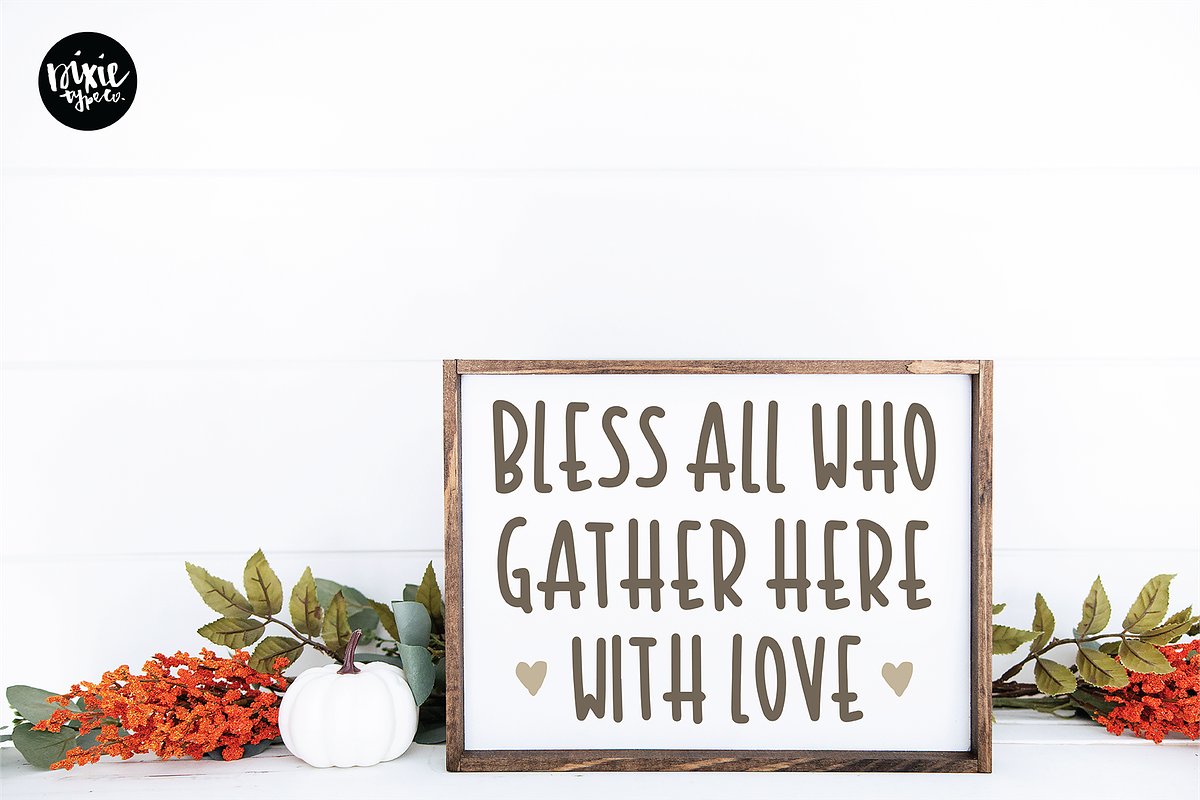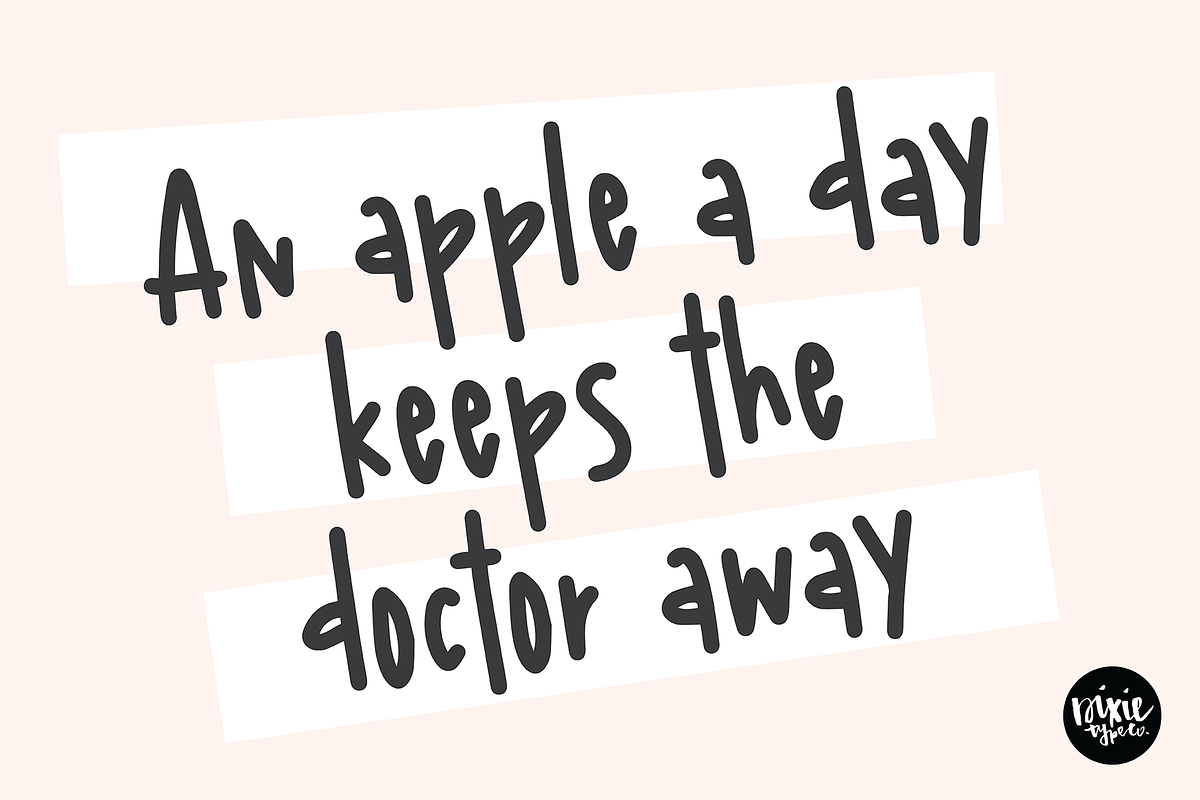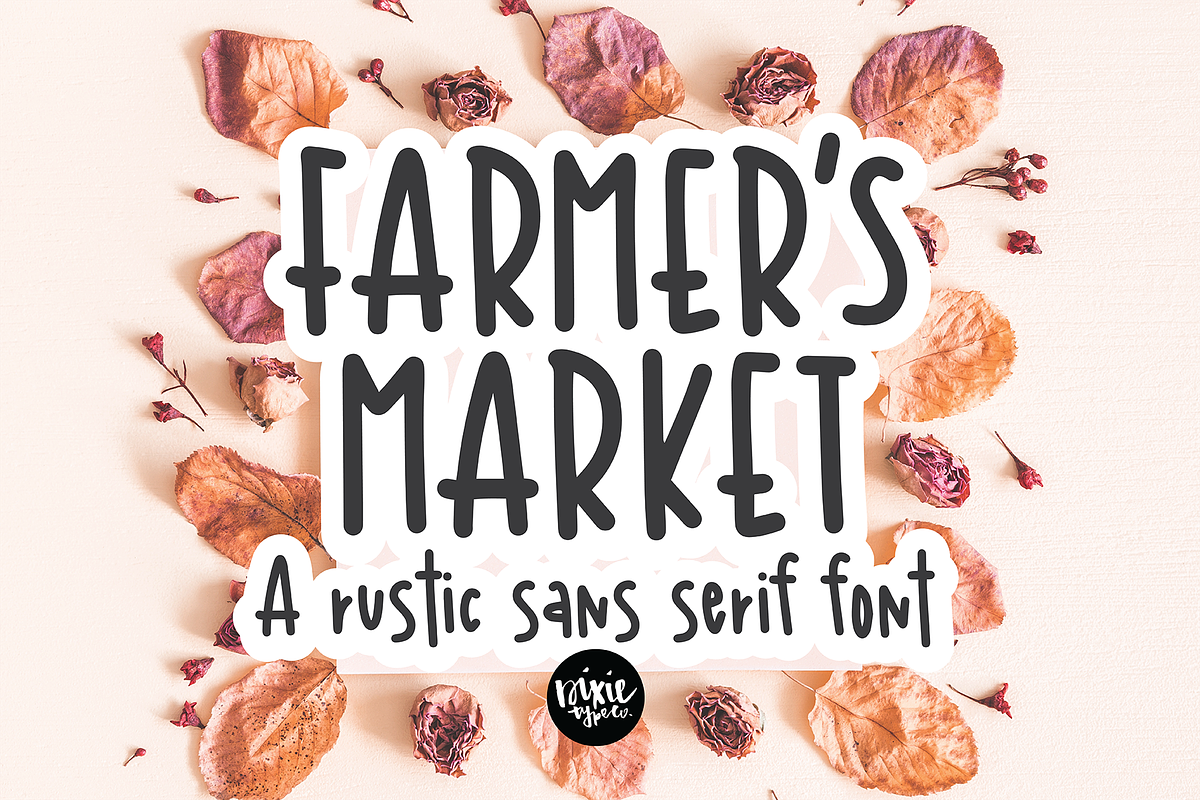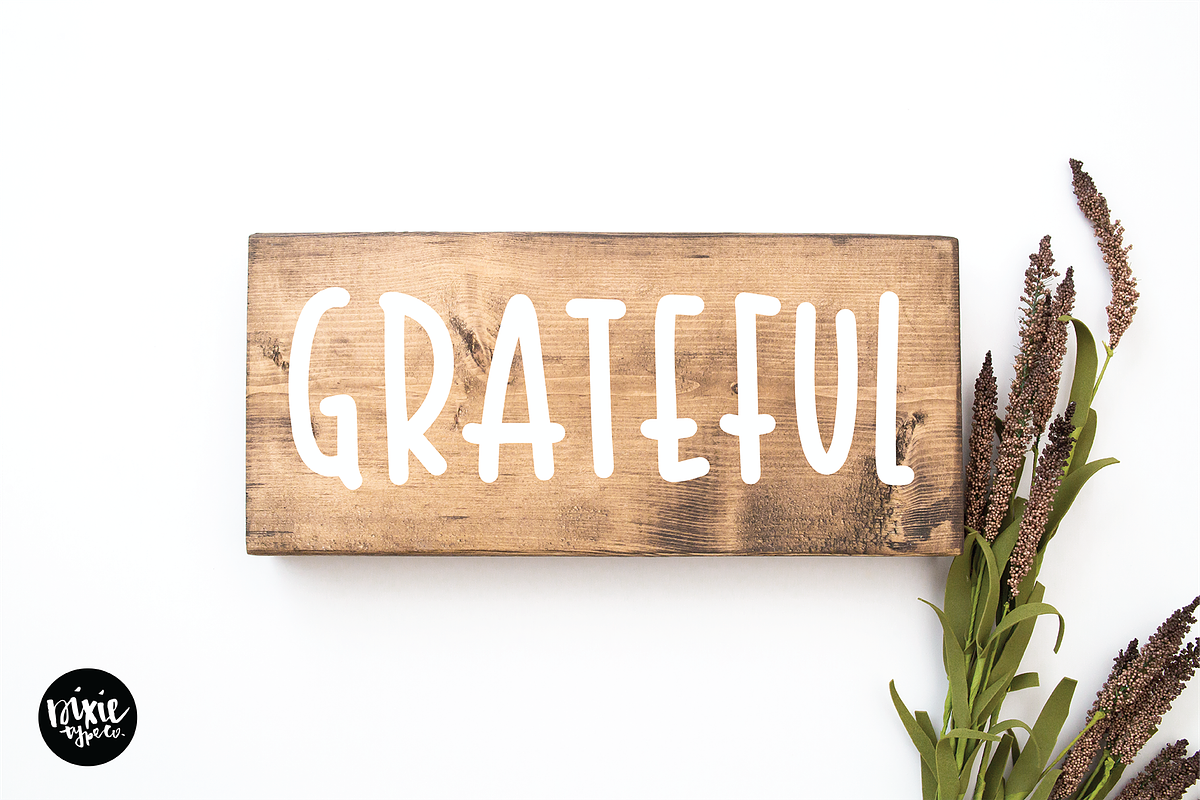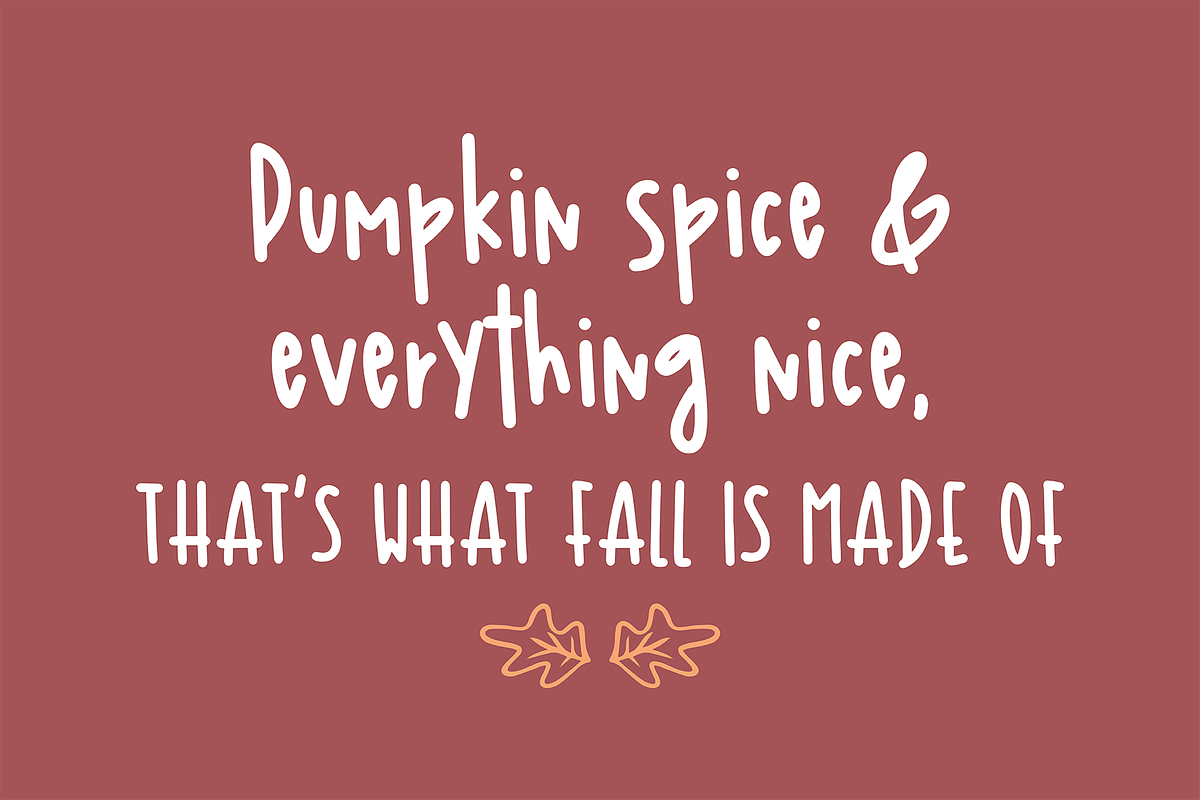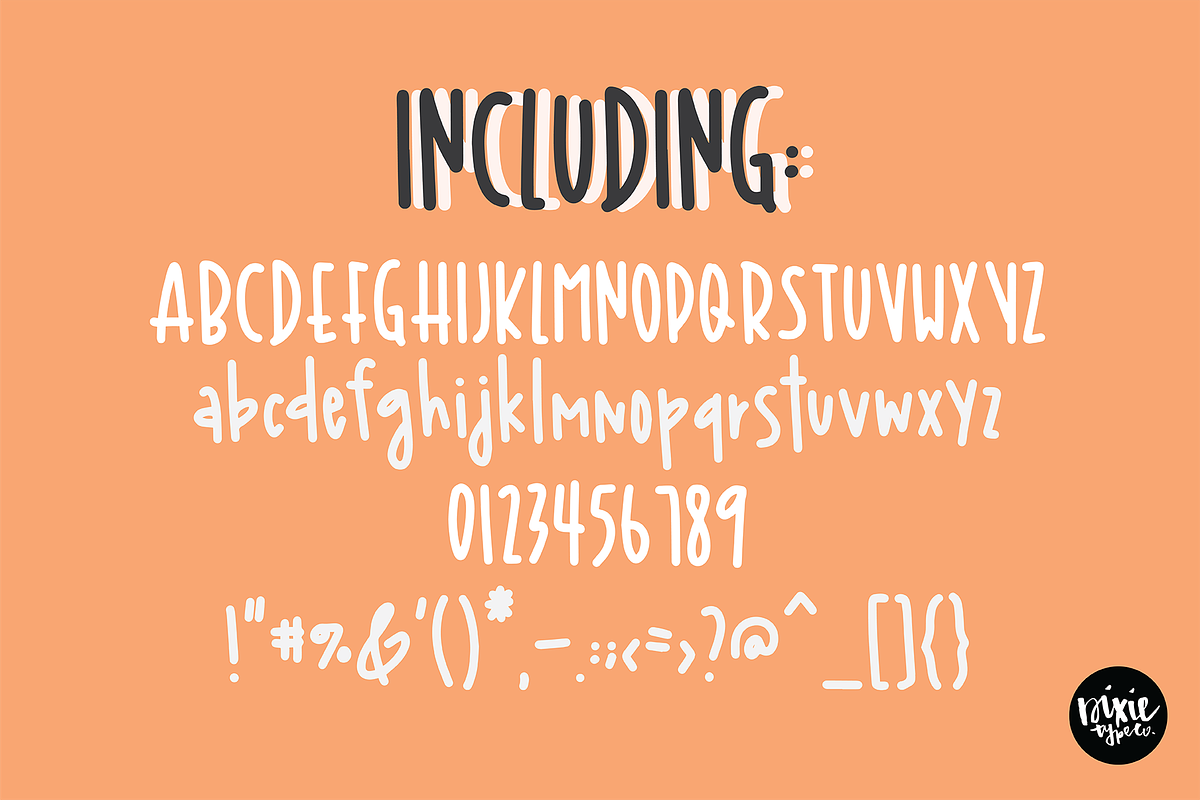
FARMER'S MARKET a Sans Serif Font
{ A typographic font hand-lettered with love by Dixie Type Co. }
Farmer's Market is a tall, rustic handwritten sans serif font that will compliment any script font. This works great in projects that use lots of text. Use it on craft projects, party invitations, home decor, signs, etc.!
Font includes: Upper and lowercase glyphs Numbers Punctuation